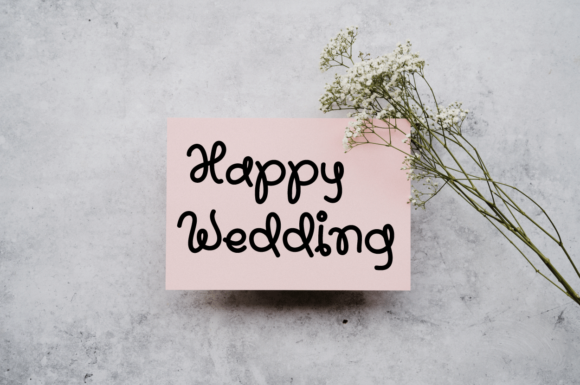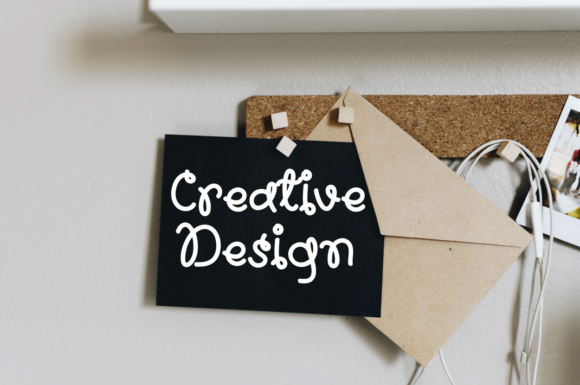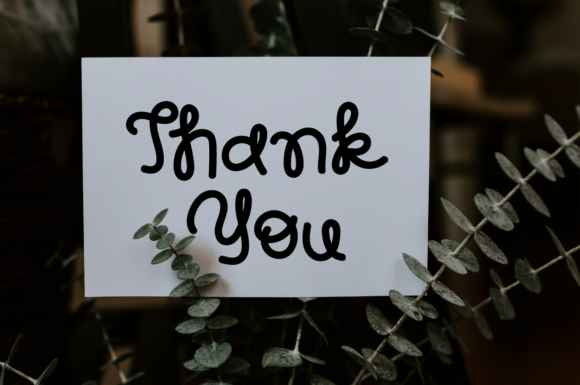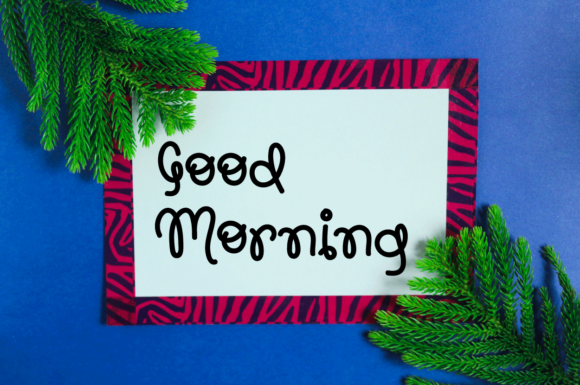
Introduction to Enjoy Party Font
Enjoy Party is a sweet and round lettered script font.
Whimsical and a bit quirky, this font will brighten up each of your designs Add it confidently to your projects, and you will love the results.
Key Features of Enjoy Party Font
Why Choose Enjoy Party Font?
Enjoy Party Font offers exceptional quality and versatility, making it a valuable addition to your design toolkit. Whether you’re creating for personal projects or commercial use, Enjoy Party Font delivers professional results.